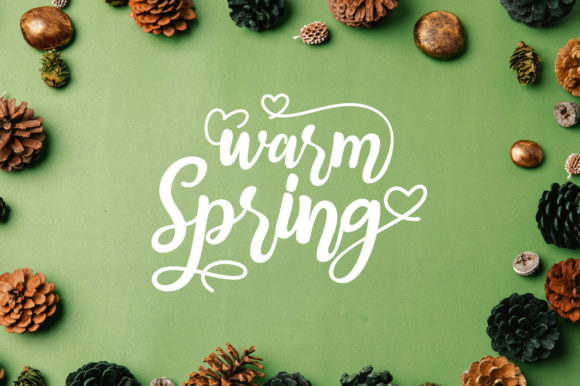
Embark on a visual odyssey with Warm Spring Font, a script masterpiece that weaves charm into every letter. Step into a realm of sophistication and grace, where your designs blossom into timeless works of art.
Warm Spring's elegant curves and flowing lines capture the essence of timeless beauty. Its passionate and inviting style evokes emotions, making it the perfect font for love letters, wedding invitations, and heartfelt messages. Each character is meticulously crafted to convey warmth and longing, adding a touch of magic to your designs.
With Warm Spring, you'll discover a font that complements a wide range of design projects. Whether you're creating logos, branding, or social media posts, this font adds a touch of elegance and refinement. Its versatility extends to invitations, stationery, and wedding designs, making it the ultimate choice for special occasions.
Bring your creations to life with Warm Spring's expressive and emotionally charged style. Its ability to convey heartfelt messages and capture the essence of love makes it an ideal choice for wedding signs, adding a touch of romance and charm to your special day.
Immerse yourself in the enchanting world of Warm Spring Font and witness the transformation of your designs. With its captivating aura and versatile nature, this font will elevate your projects to new heights of elegance and sophistication. Create designs that resonate, designs that ignite emotions, and designs that leave a lasting impression.